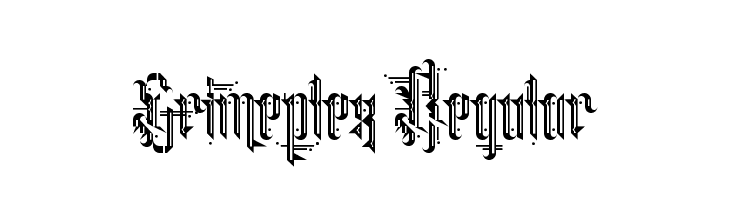
An intricate and decorative blackletter-inspired font with modern flair.
An ornate blackletter font with intricate, medieval-inspired design.
An intricate and decorative Blackletter-style font with sharp, angular lines.